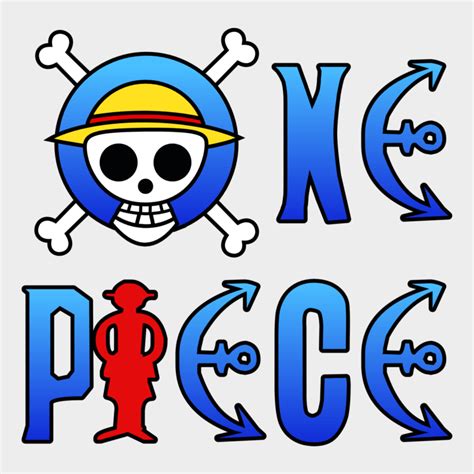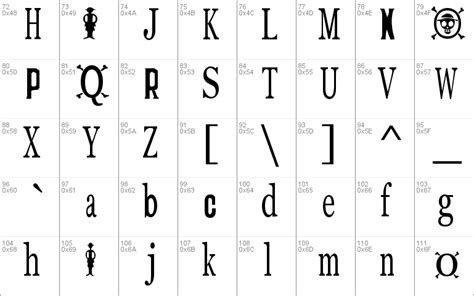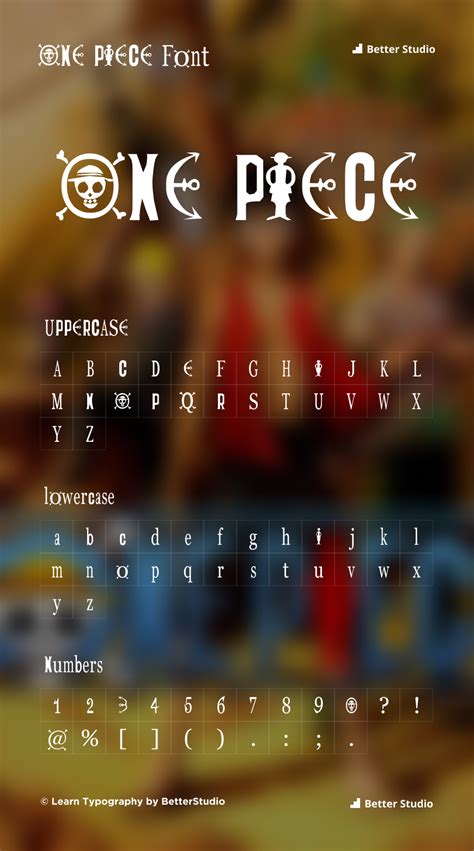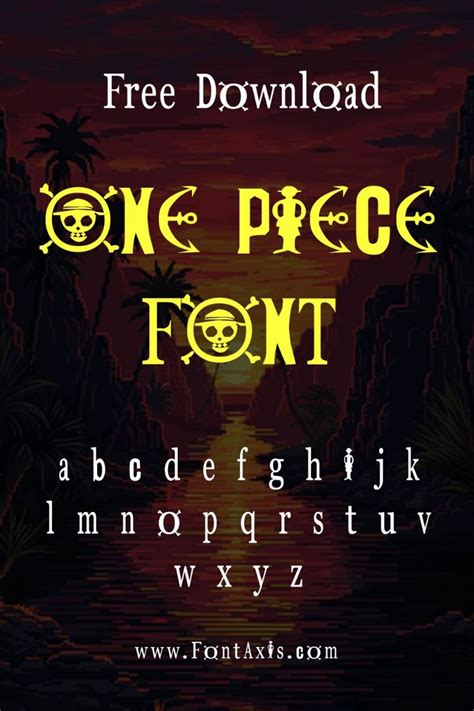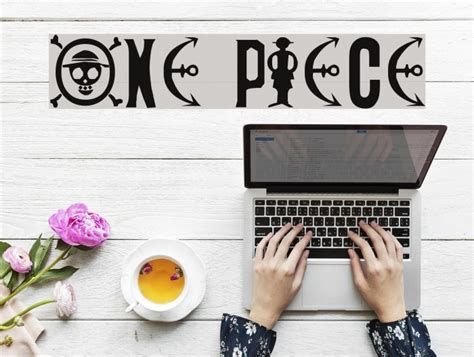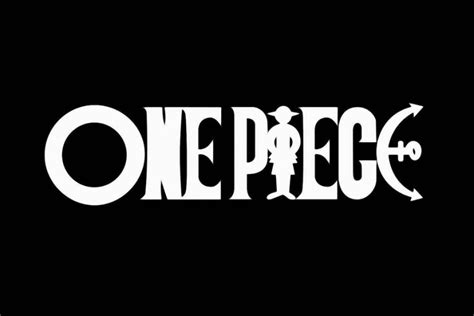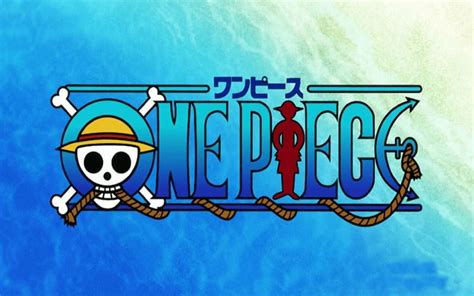
ONE PIECE FONT
The one piece font is a unique and distinctive font style that has gained popularity in various creative fields. This font is characterized by its bold and eye-catching design, making it a favorite among graphic designers, artists, and content creators. With its ability to capture attention, the one piece font has become a versatile tool for enhancing visual content and adding a touch of creativity to any project.
One of the key features of this font is its versatility. It can be used for a wide range of applications, from headings and titles to body text, making it suitable for various design purposes. Its bold and modern aesthetic allows it to stand out, ensuring that the message or content is delivered with impact.
A notable benefit of using the one piece font is its ability to enhance readability. Despite its bold appearance, the font is designed with legibility in mind, ensuring that the text remains clear and easy to read, even at smaller sizes. This makes it an excellent choice for both print and digital media, where clarity and visual appeal are essential.